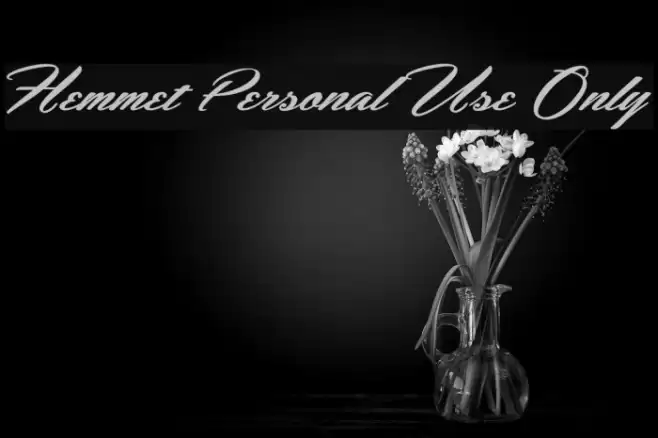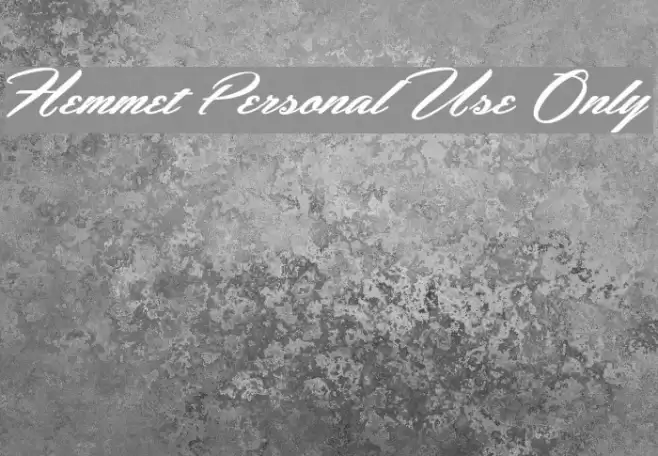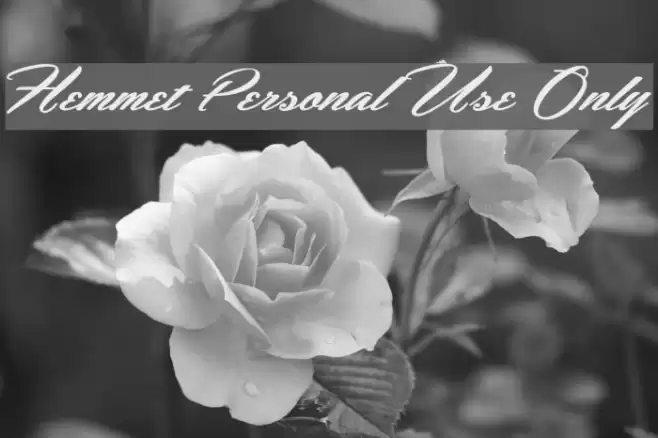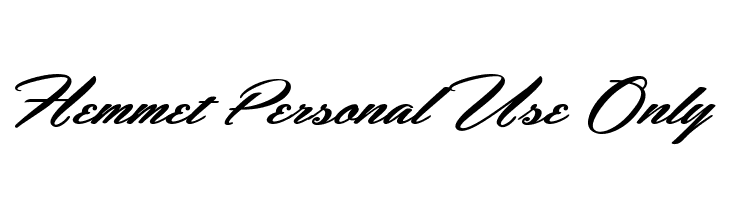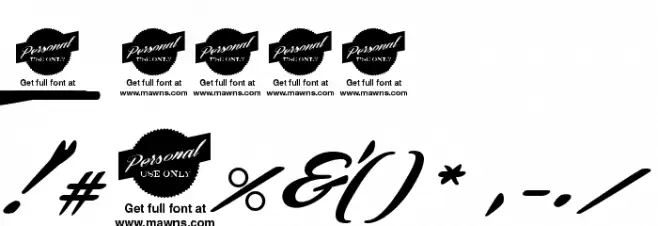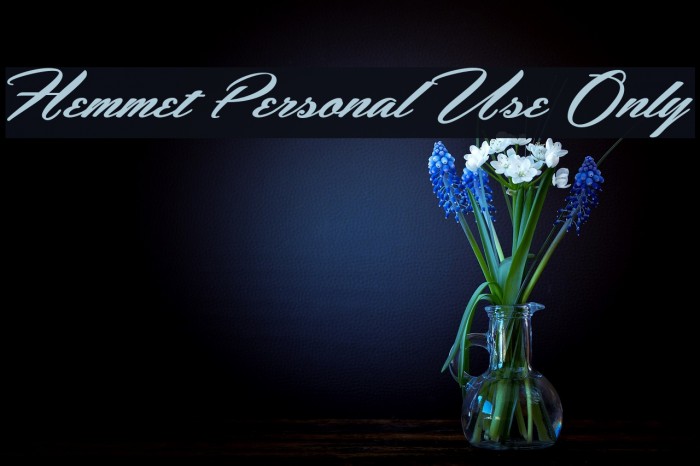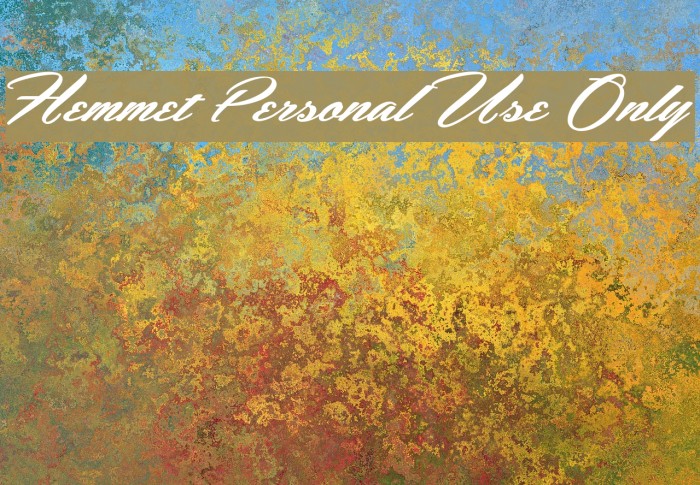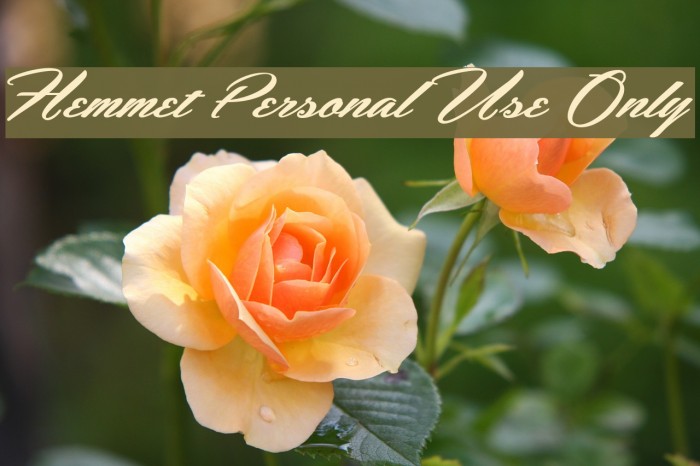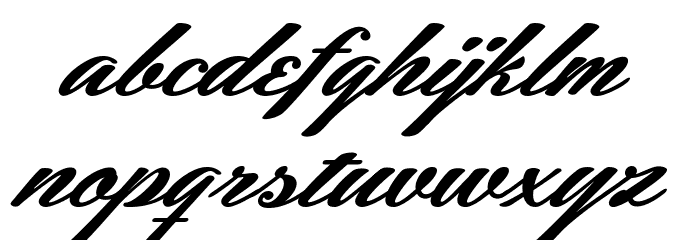
Hemmet Personal Use Only Font
Hemmet Personal Use Only Description
This font features a dynamic and elegant script style with a flowing, cursive design. The uppercase letters are characterized by their sweeping curves and graceful lines, giving a sense of movement and sophistication. The lowercase letters maintain a consistent style, with smooth connections between characters, enhancing readability while retaining an artistic flair. The numerals and special characters are designed to match the overall aesthetic, with similar curves and strokes. This font is ideal for projects that require a touch of elegance and personality, such as invitations, branding, and decorative purposes.
A dynamic and elegant script font with flowing, cursive design.
- Proposed Projects: Ideal for invitations, branding, decorative purposes, and elegant designs.
- Category: Script
- Overall Style: Elegant, Decorative
- Use Case: Headlines, Logos, Invitations